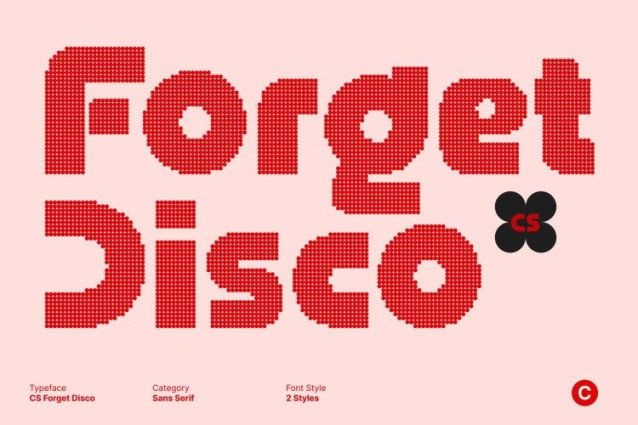
CS Forget Disco Font
CS Forget Disco Font This is a modern display font built on futuristic principles, highlighting technological sophistication and forward-thinking aesthetics. Constructed from precise geometric forms and bold linear strokes, it delivers a sharp and confident appearance. Enhanced with a disco-inspired finish, the font radiates glamour, festivity, and high-energy motion bringing modern typography to life with a vibrant visual pulse.
Geometric Structure with Bold, Radiant Presence
At its core, features a carefully engineered geometric foundation. Each letterform is crafted with precision and balance, creating a structured rhythm that feels mechanical yet expressive. The bold strokes ensure strong visibility and impact, while the disco styling adds a lively sparkle, like light reflecting across a dance floor making every character feel dynamic and eye-catching.
Tech-Forward Style with Disco Attitude
Designed for futuristic and technology-oriented visuals, this font communicates innovation, digital progress, and modern systems. The addition of disco energy transforms its clean geometry into something more expressive and celebratory. Perfect for tech branding, sci-fi visuals, music events, nightlife promotions, and digital campaigns.
Versatile Display Font for High-Energy Creativity
Despite its bold futuristic character, remains highly versatile. It performs beautifully in titles, posters, logos, gaming visuals, tech campaigns, and experimental layouts. Its strong structure ensures clarity at large sizes, while its glamorous, energetic personality injects excitement, movement, and visual impact into every design.